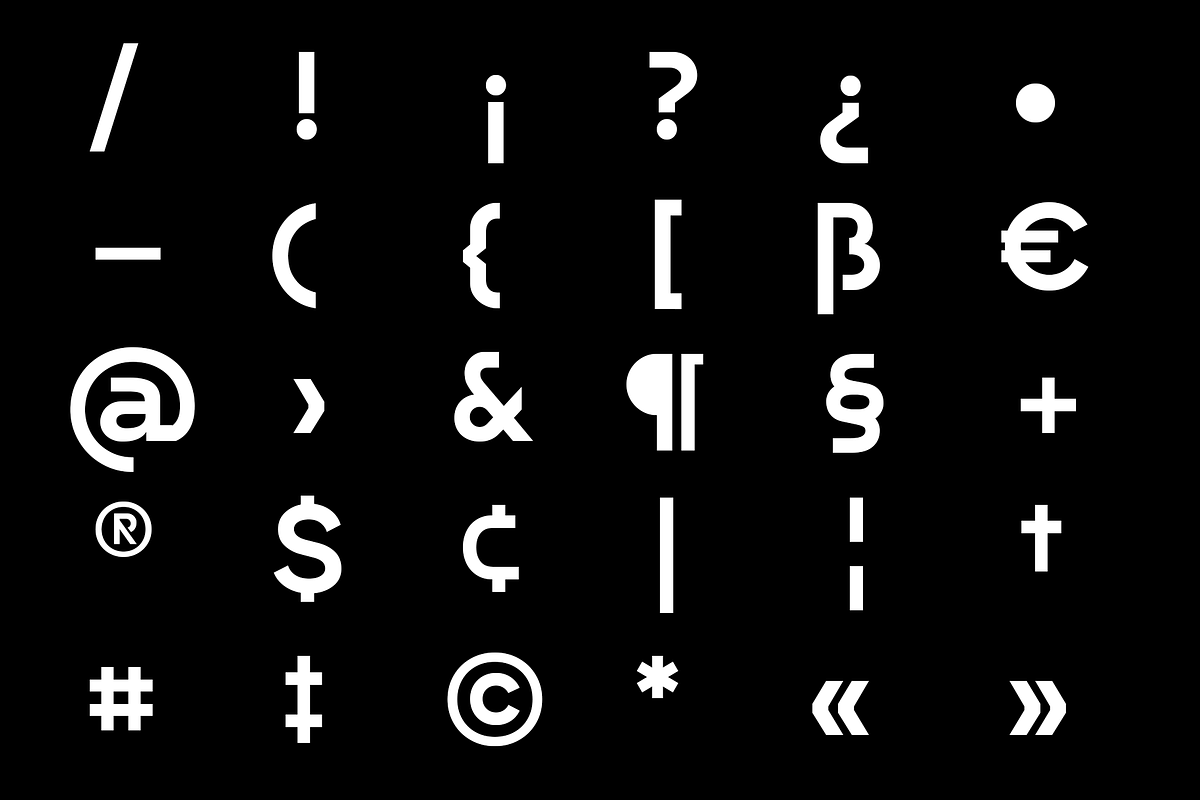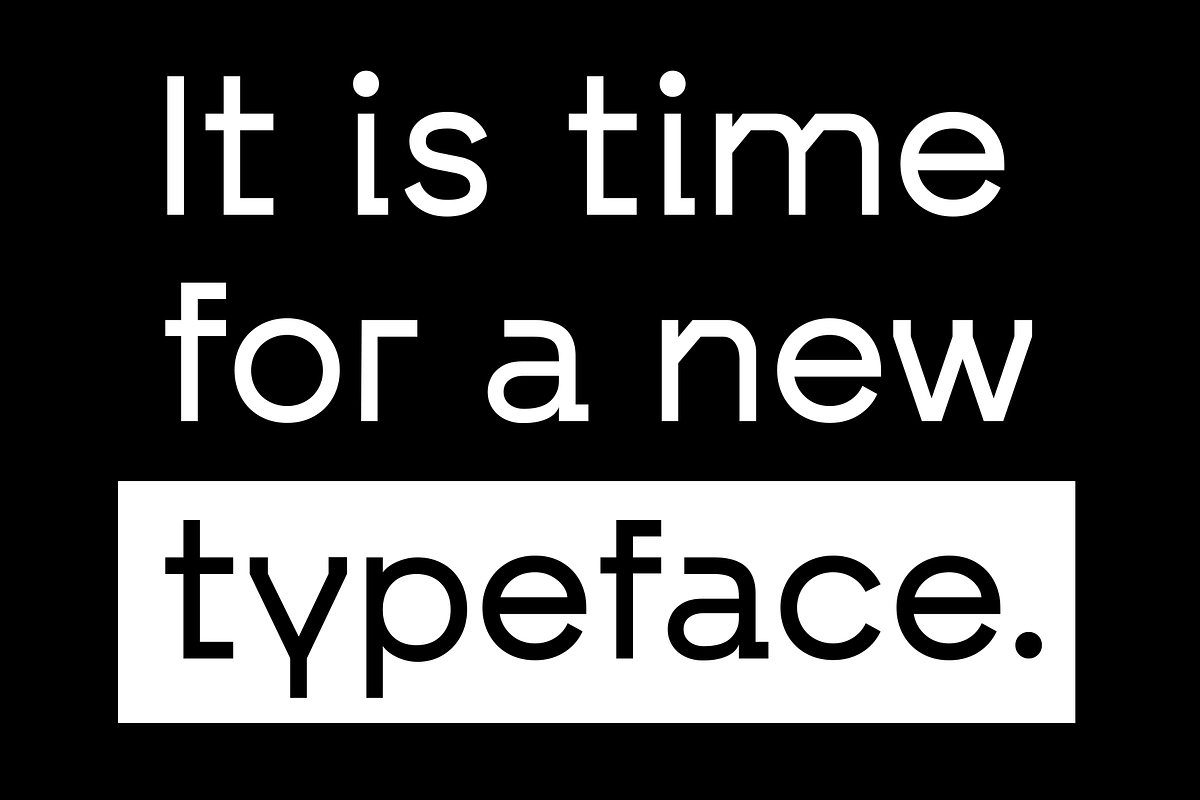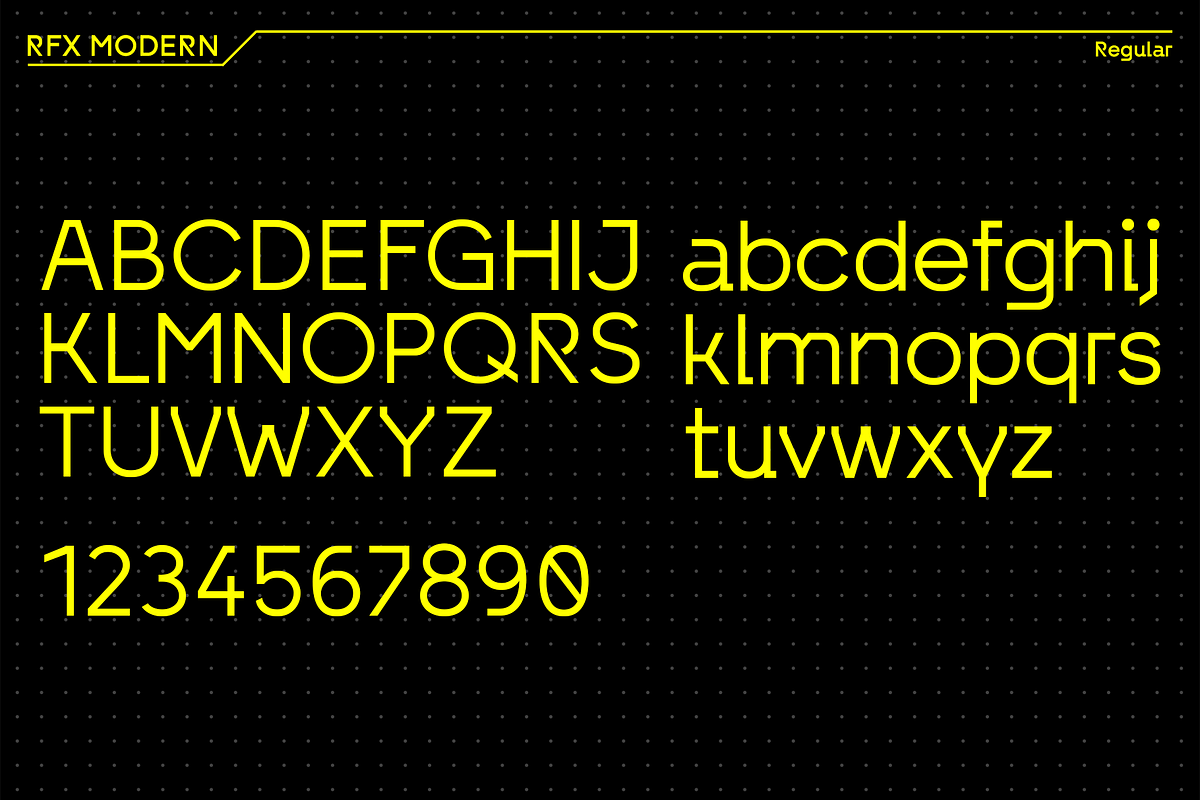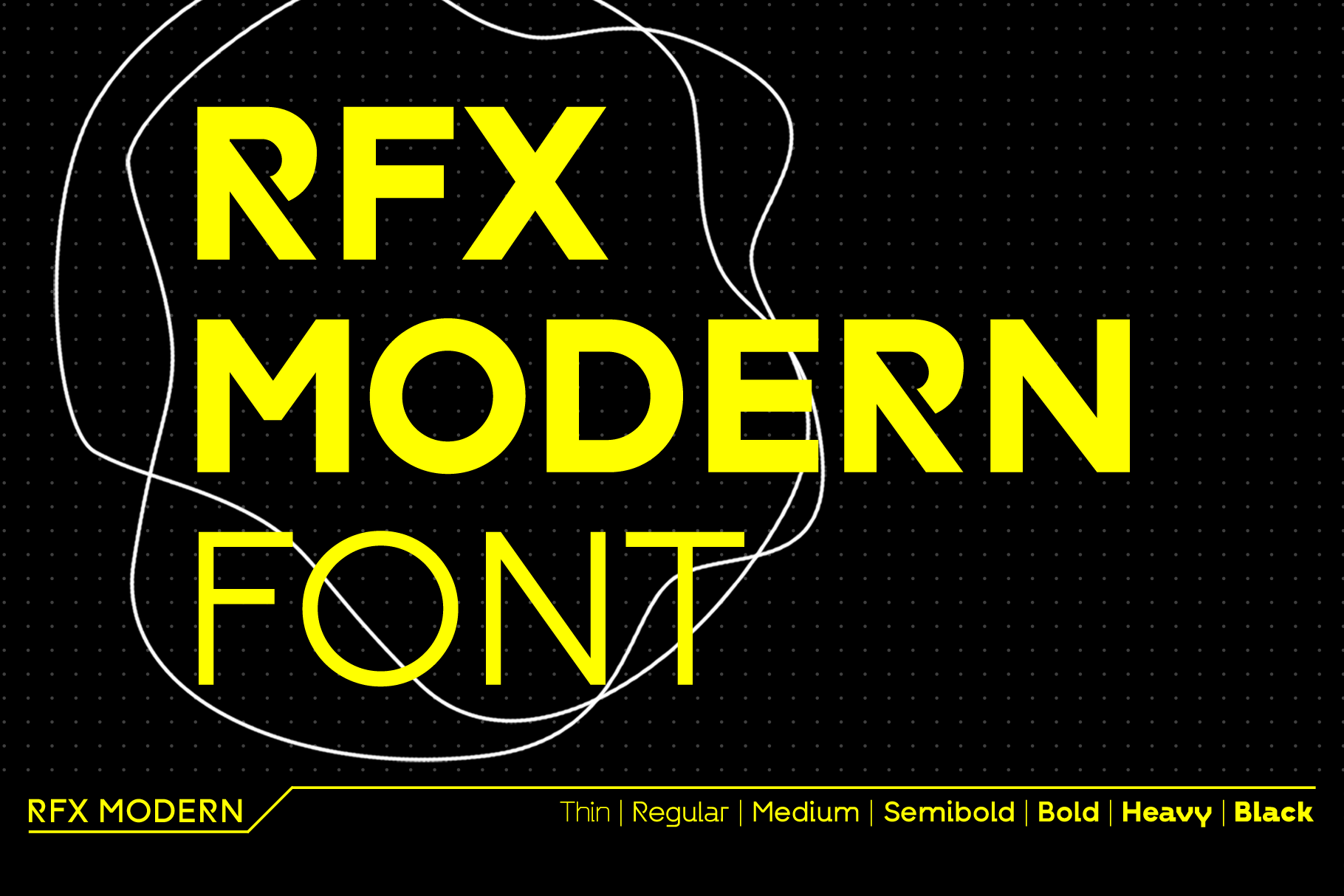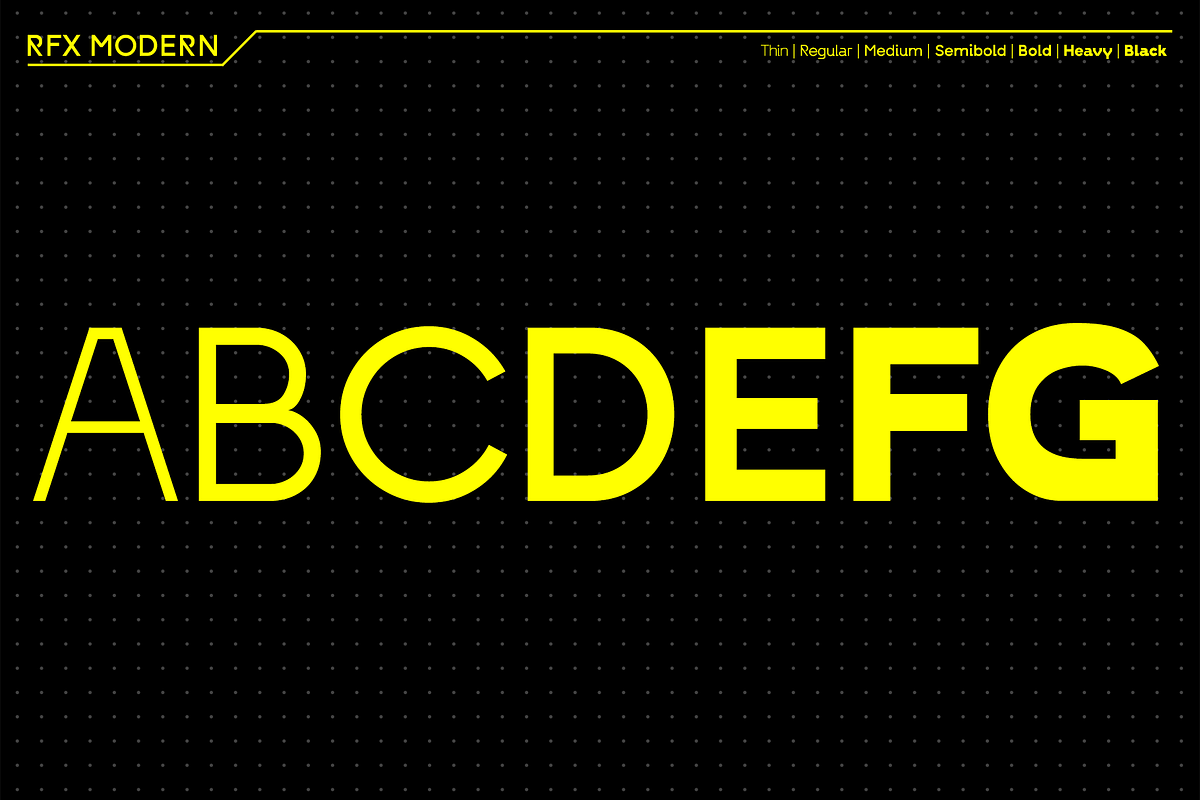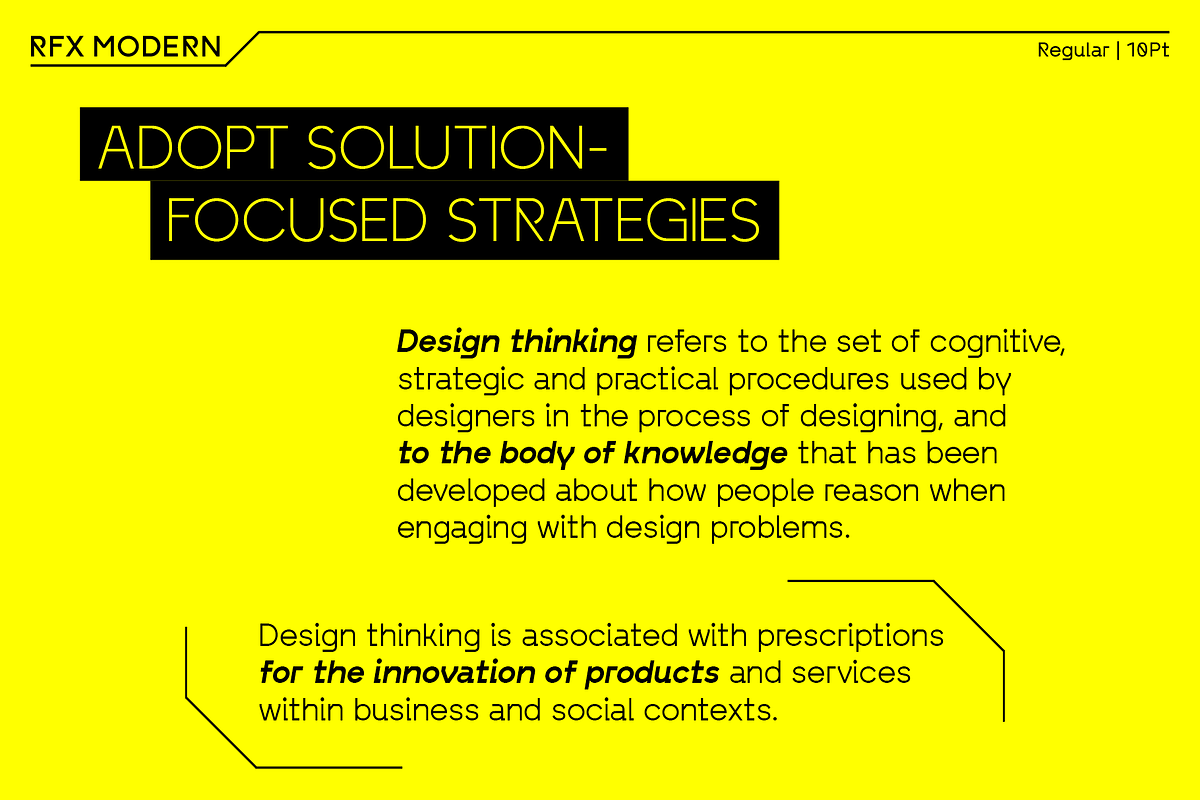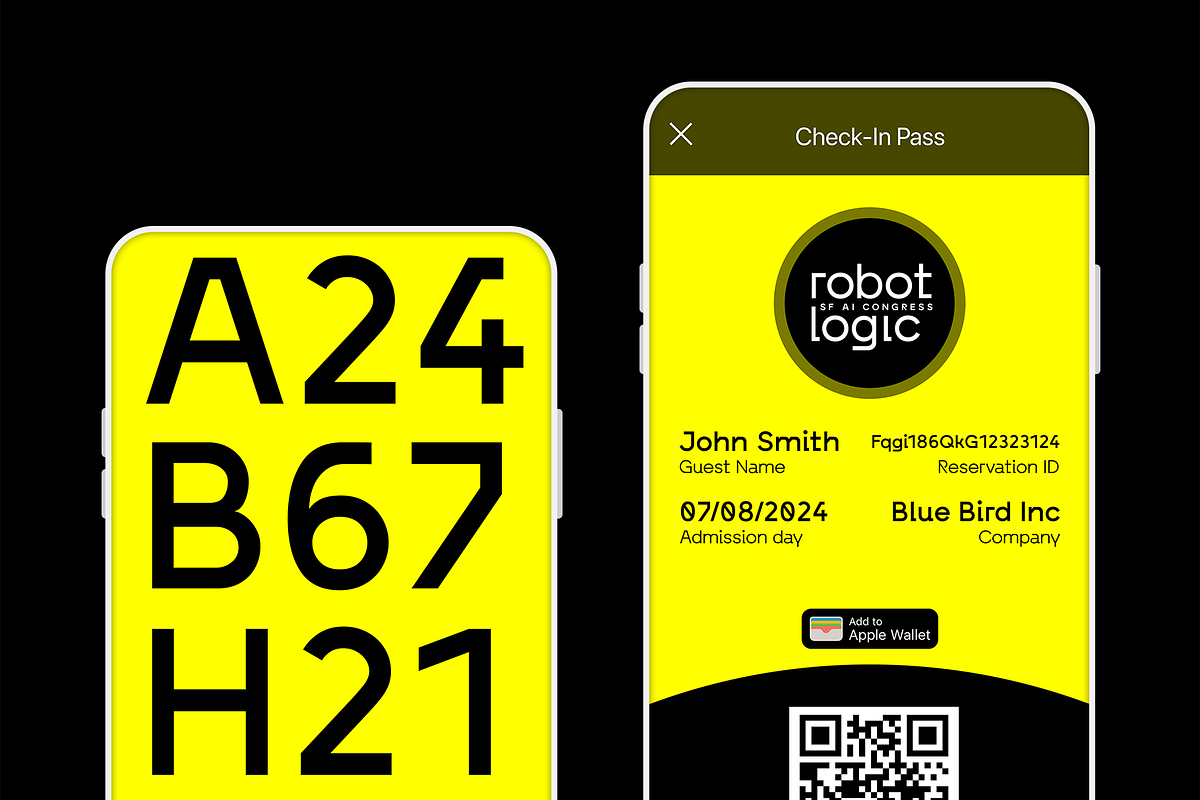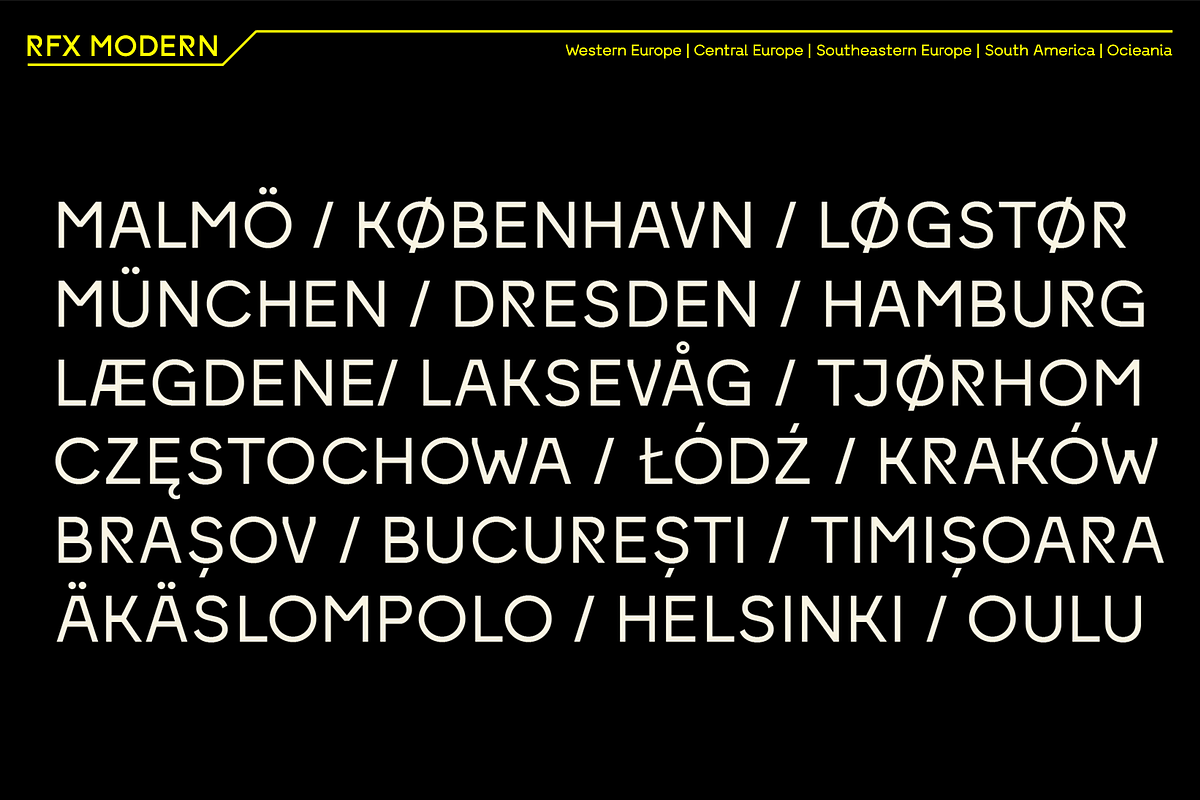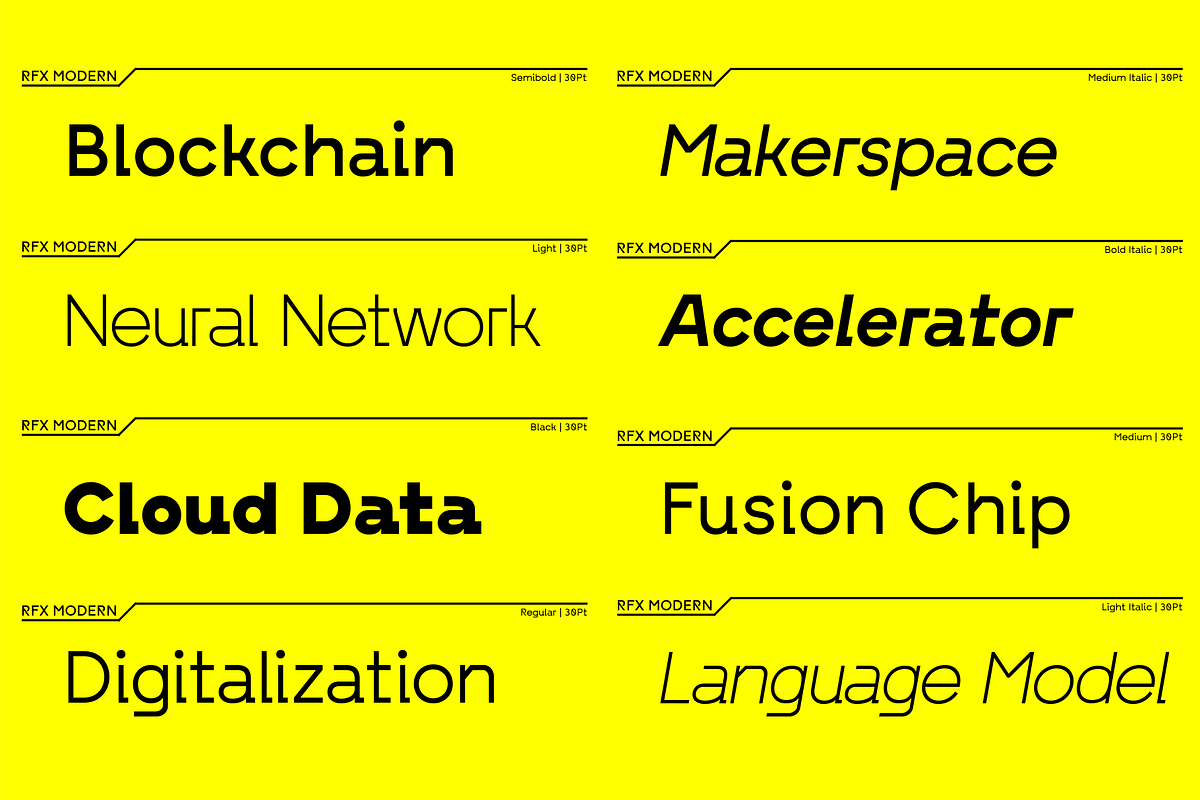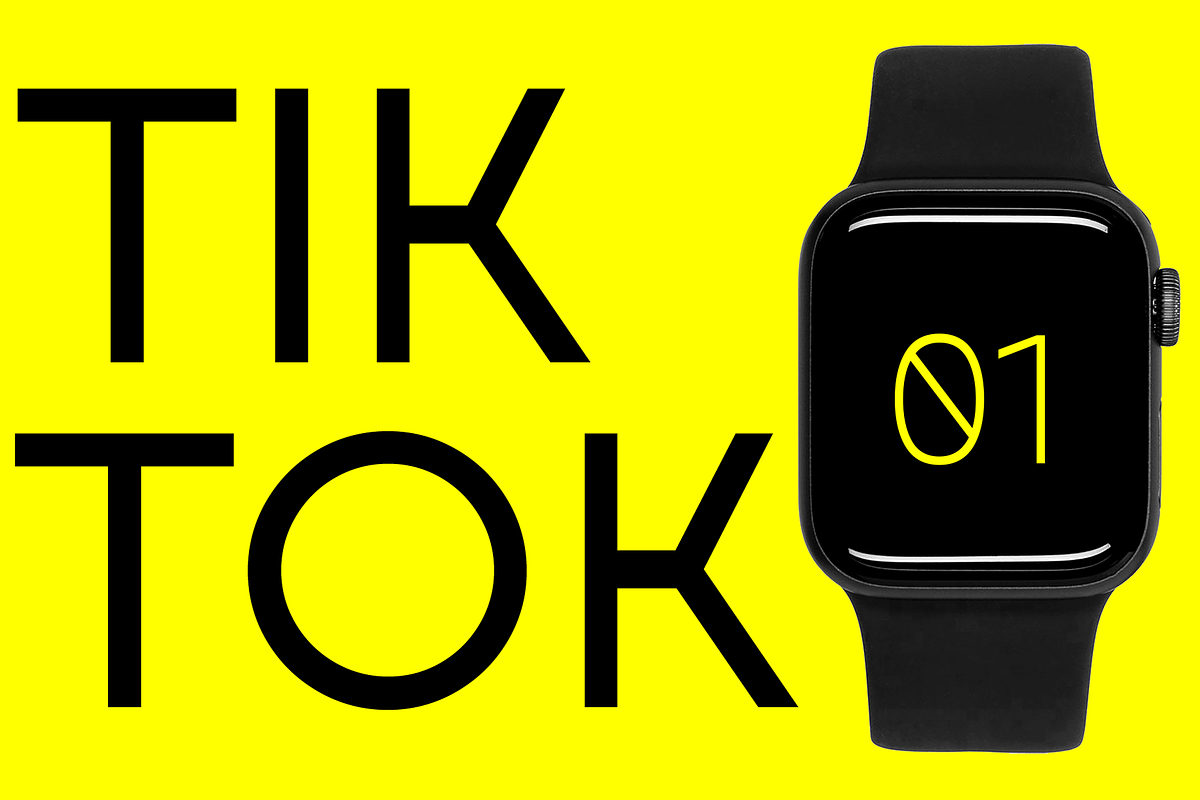
RFX Modern Font Bundle | 14 Styles
RFX Modern, published in 2024, is a contemporary typeface.
The idea was to create a typeface that is immediately associated with topics such as AI, blockchain, digitalization and innovation. The 90° angles and horizontal emphasis give it both a technical and futuristic character. Although it has a strong character of its own, it is still compliant enough to be used as a continuous text font. Monospacing and a high X-height make it very striking and pleasing to the eye. Of course, it supports all common accents and special characters of the Latin alphabet. The bundle contains all 14 styles from Thin to Black.